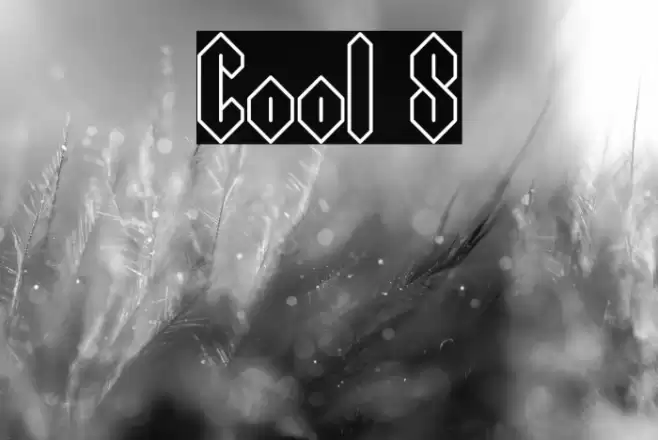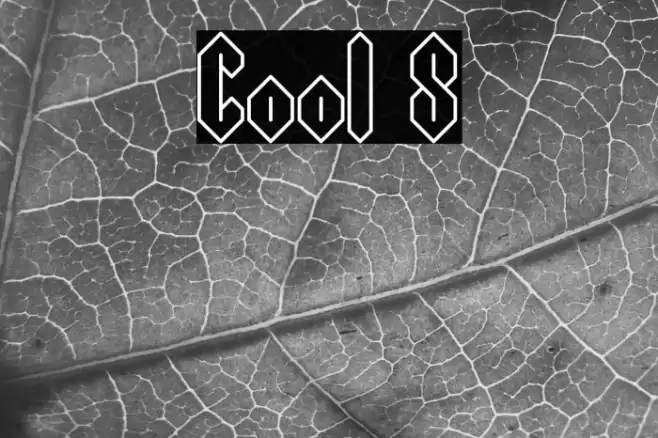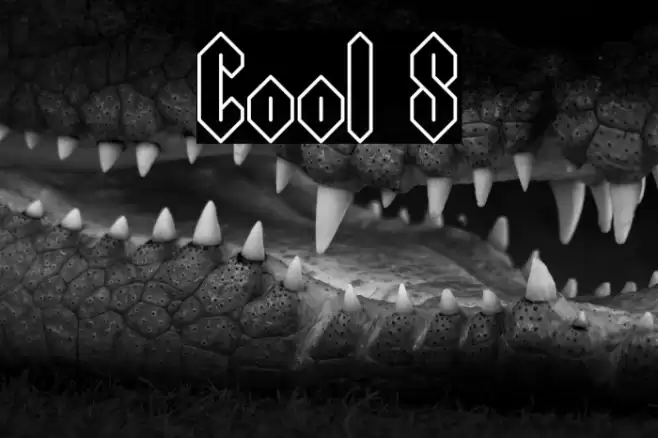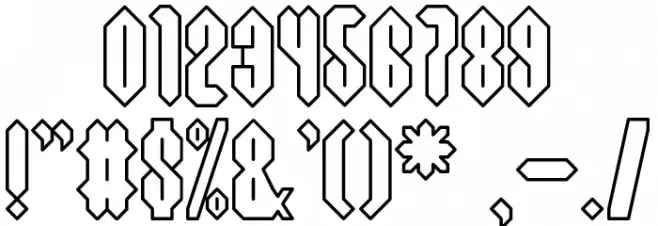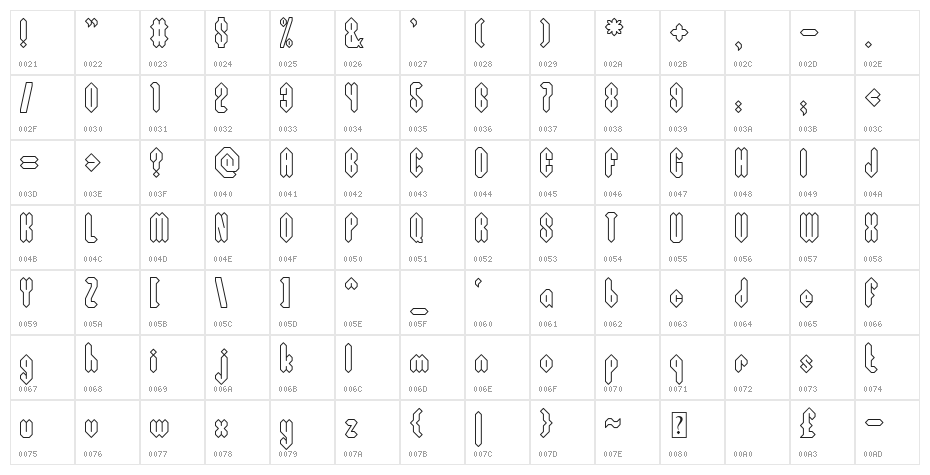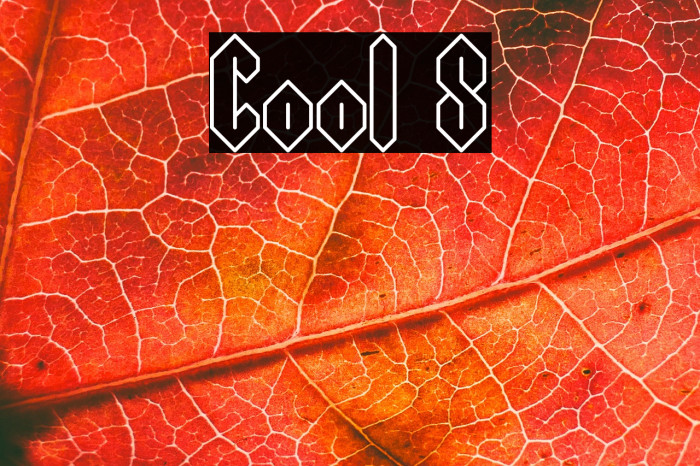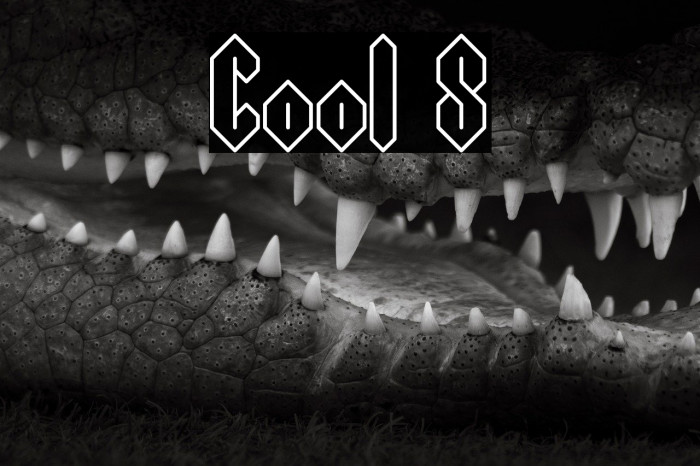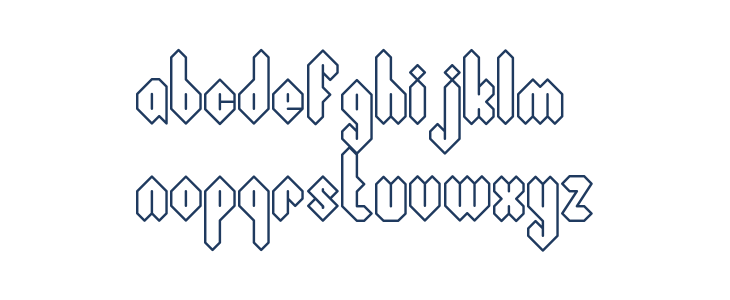
Cool S Font
Cool S Description
This font features a bold, geometric design with a three-dimensional effect, giving it a striking and modern appearance. The characters are outlined with a thick border, creating a sense of depth and structure. The uppercase and lowercase letters maintain a consistent style, with sharp angles and clean lines that contribute to its futuristic look. The numbers and special characters are designed to match the overall aesthetic, ensuring uniformity across all glyphs. This font's unique style makes it stand out, ideal for projects that require a bold statement.
A bold, geometric font with a three-dimensional effect and sharp angles from Regular fonts.